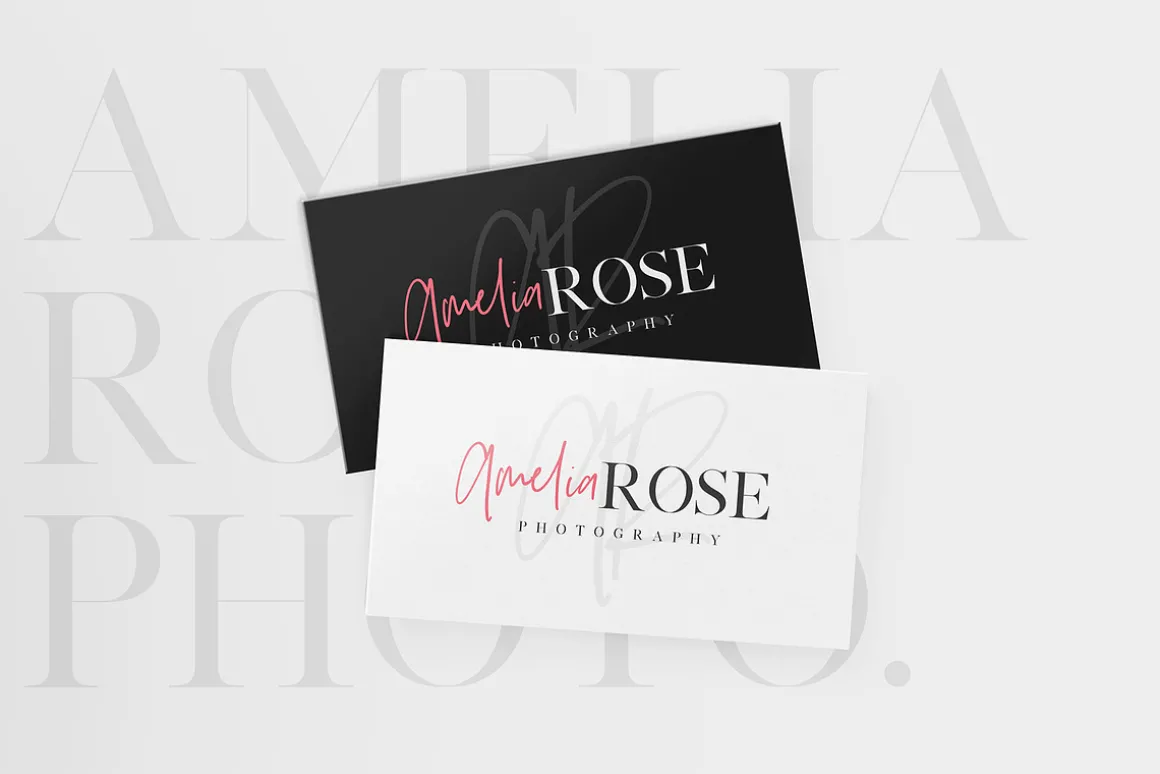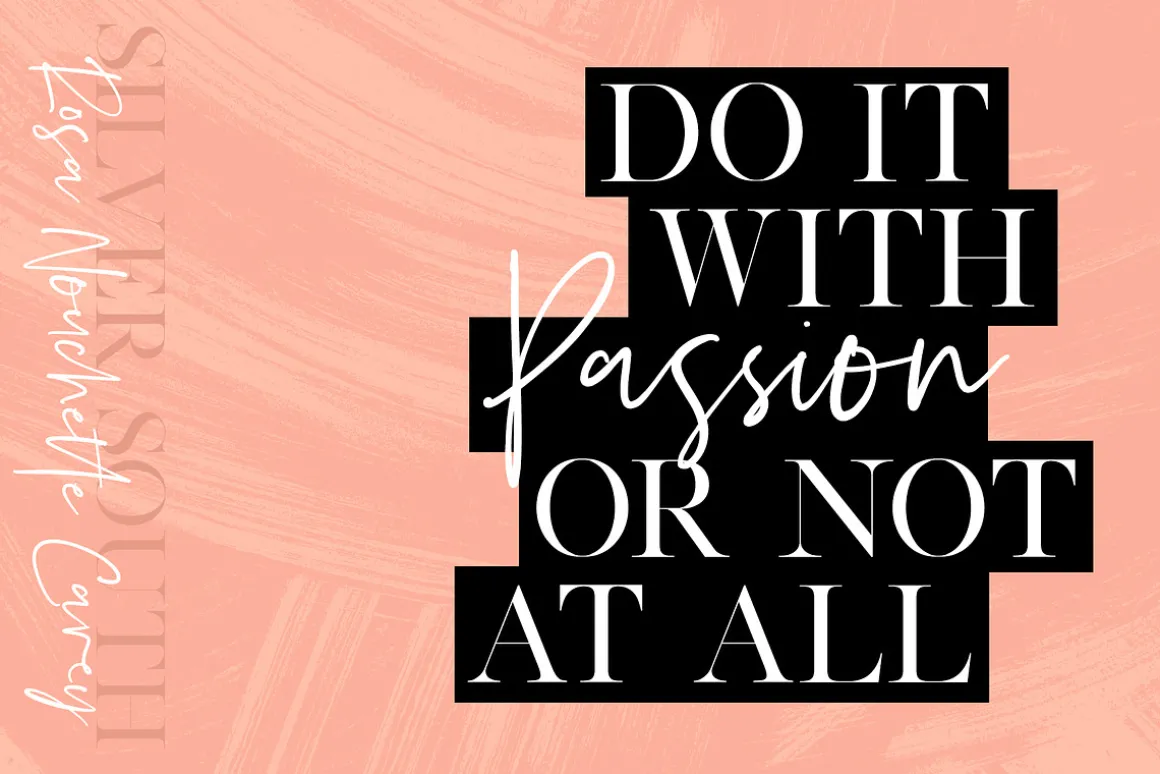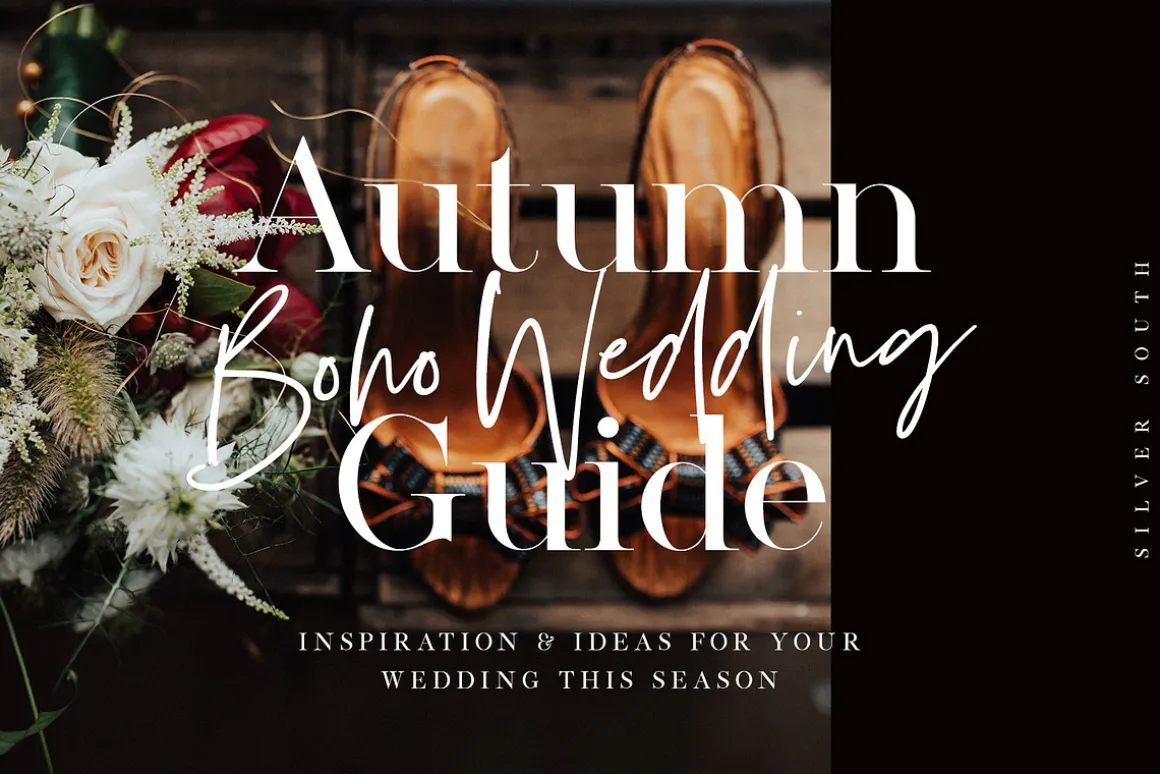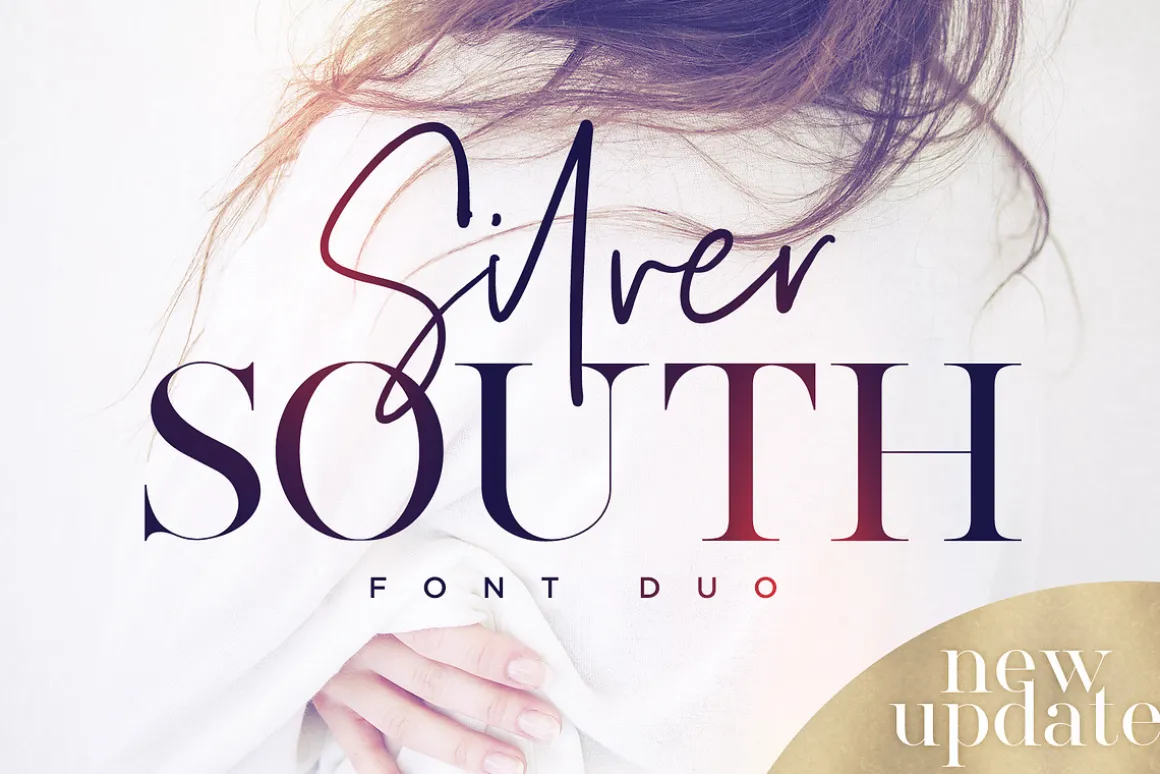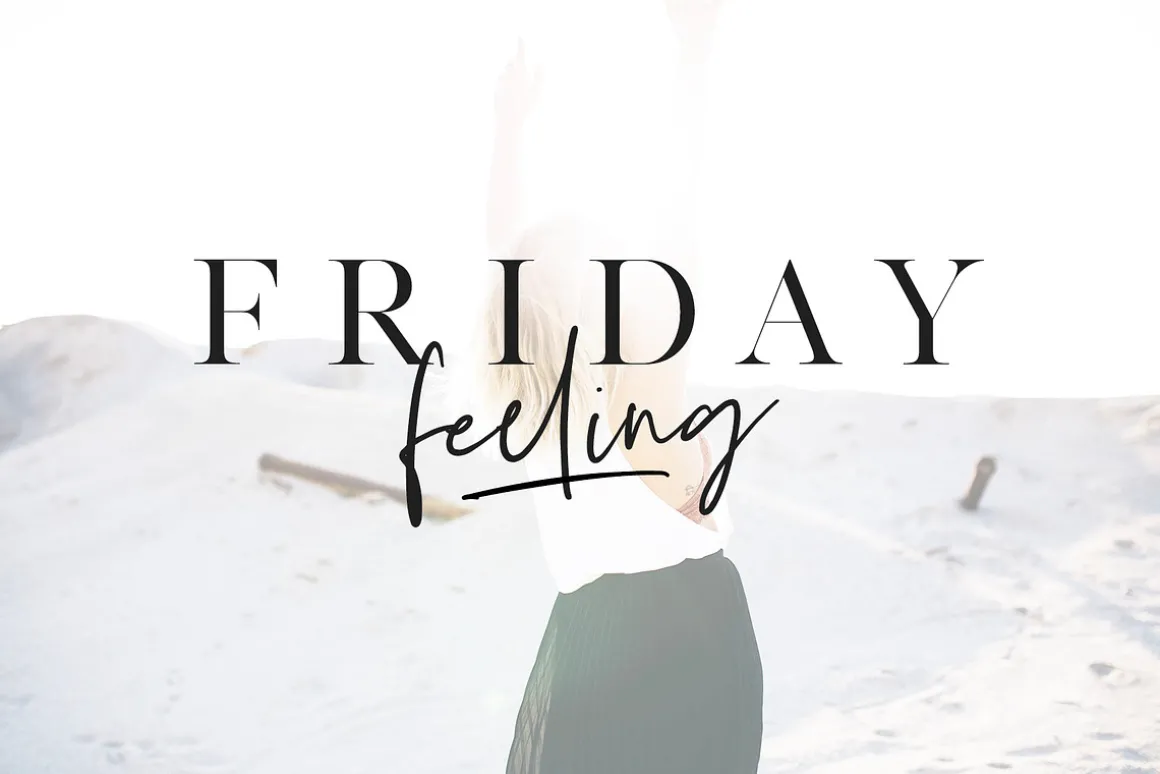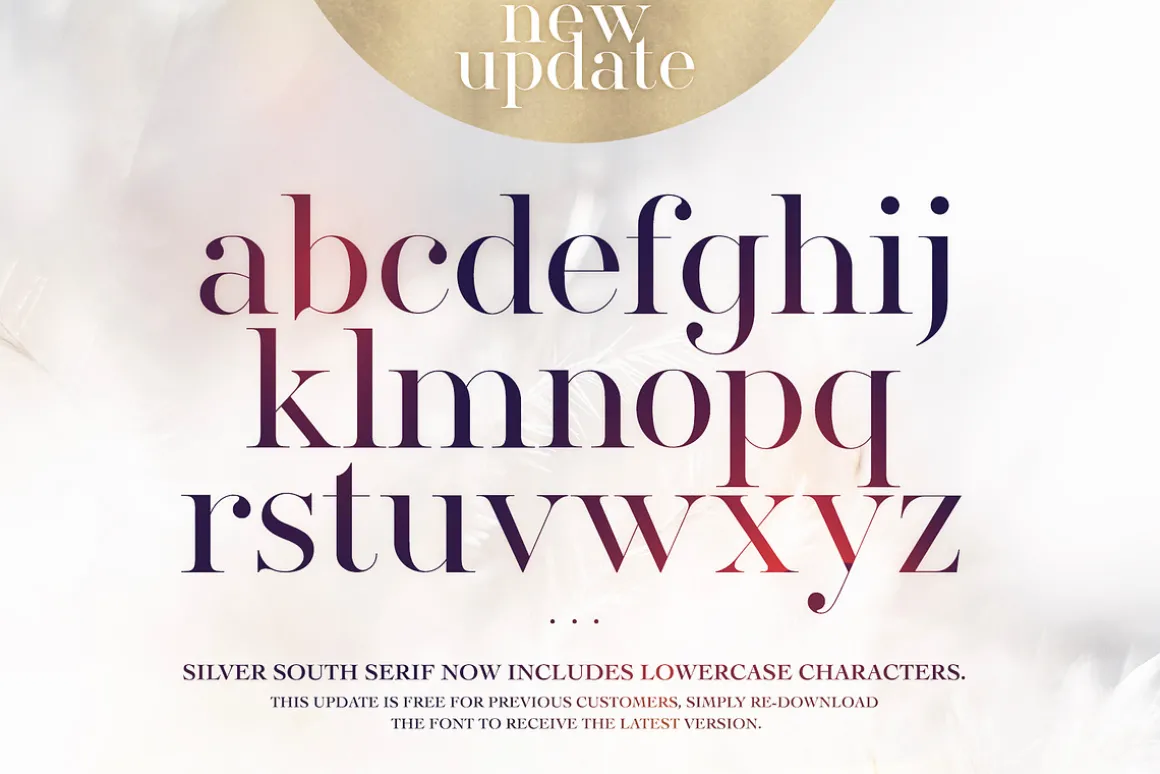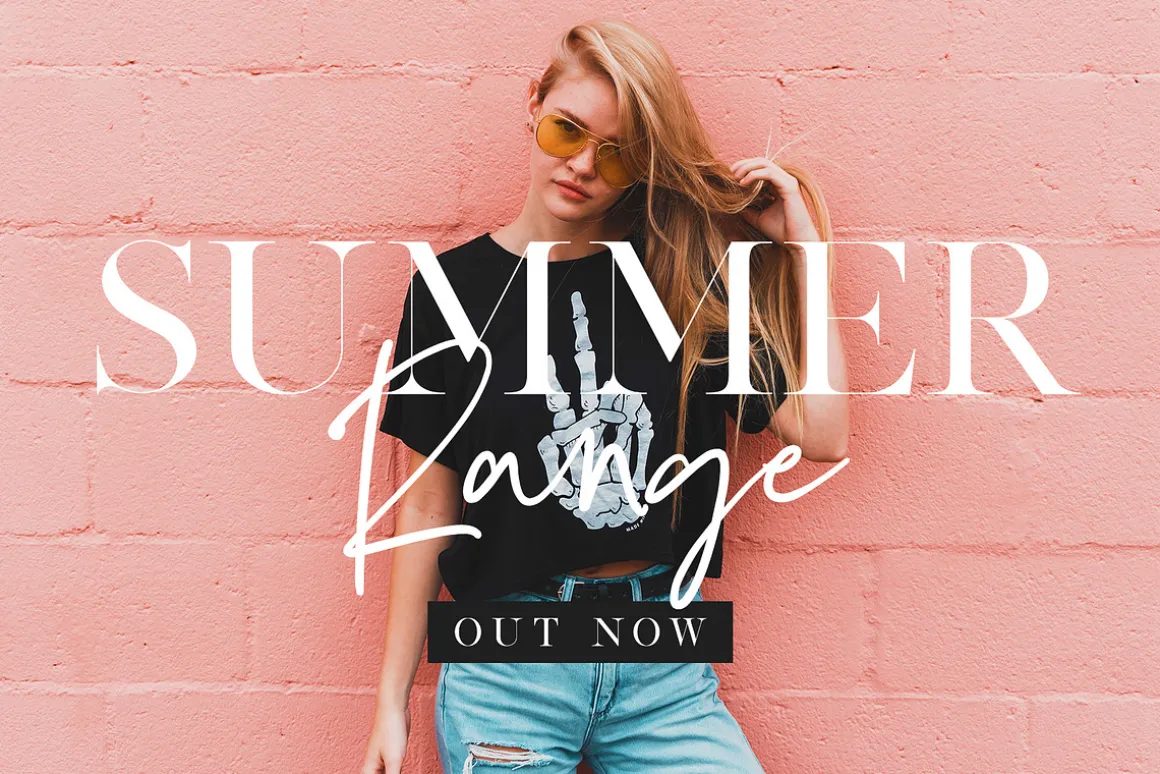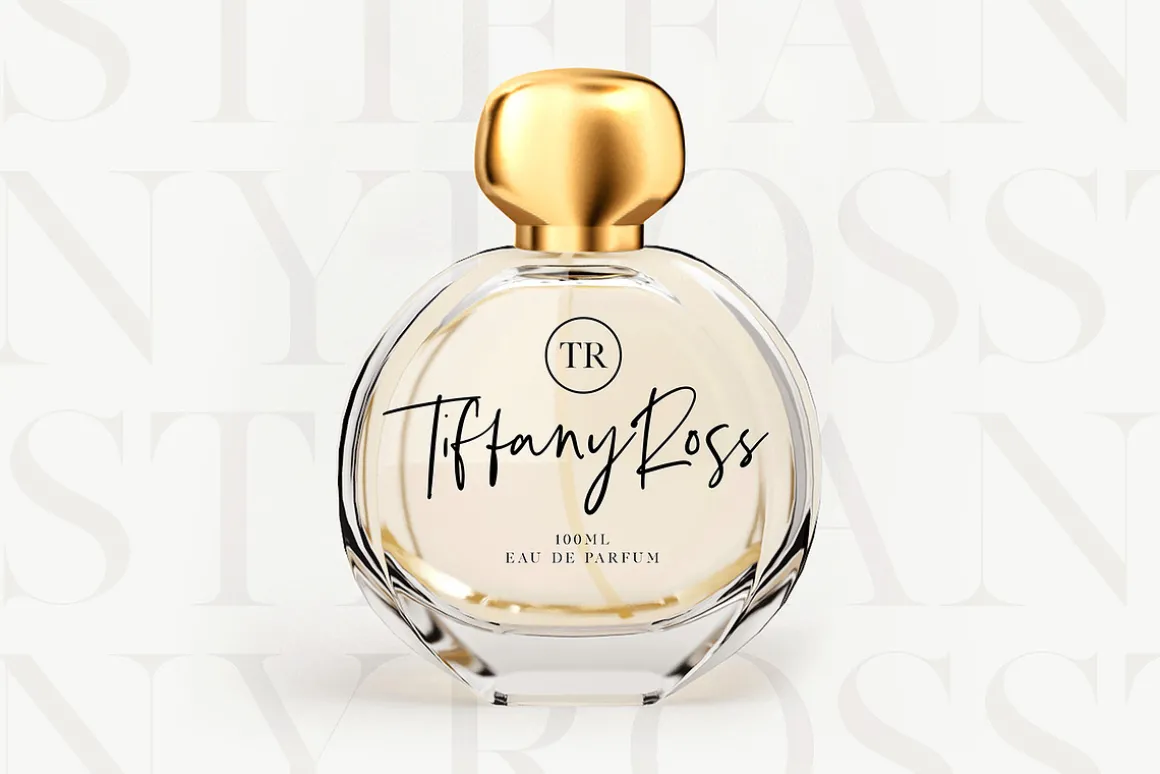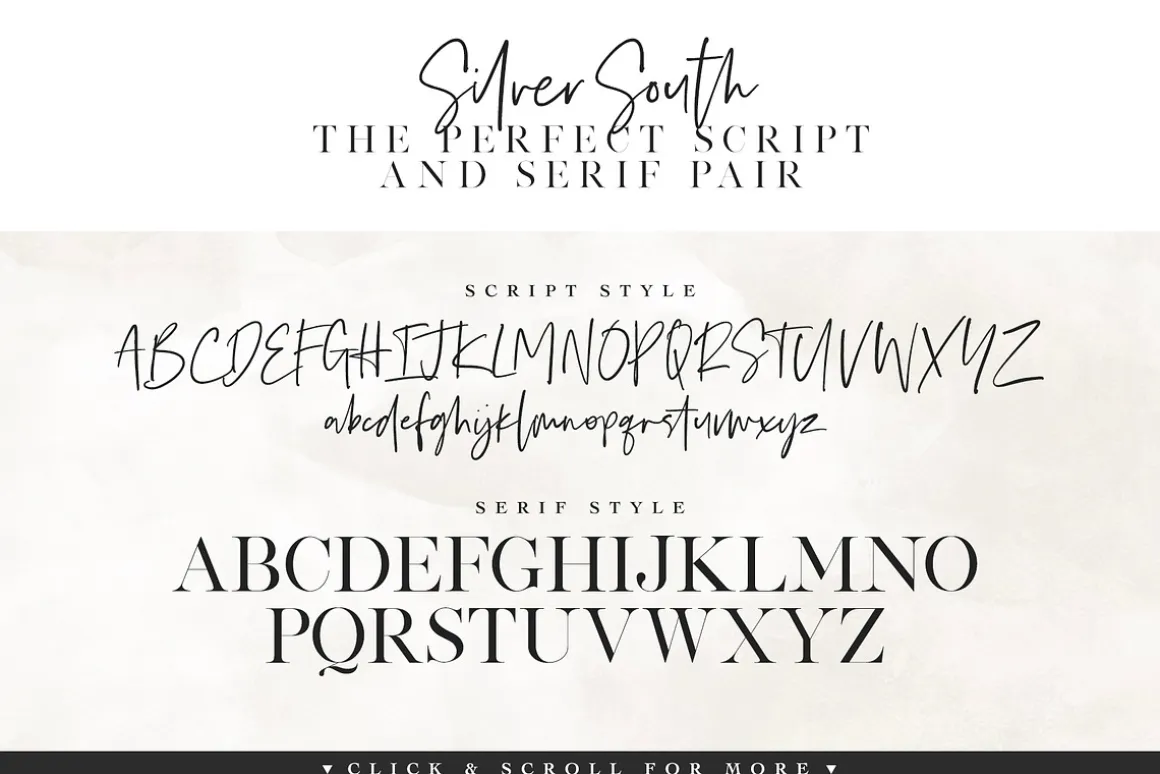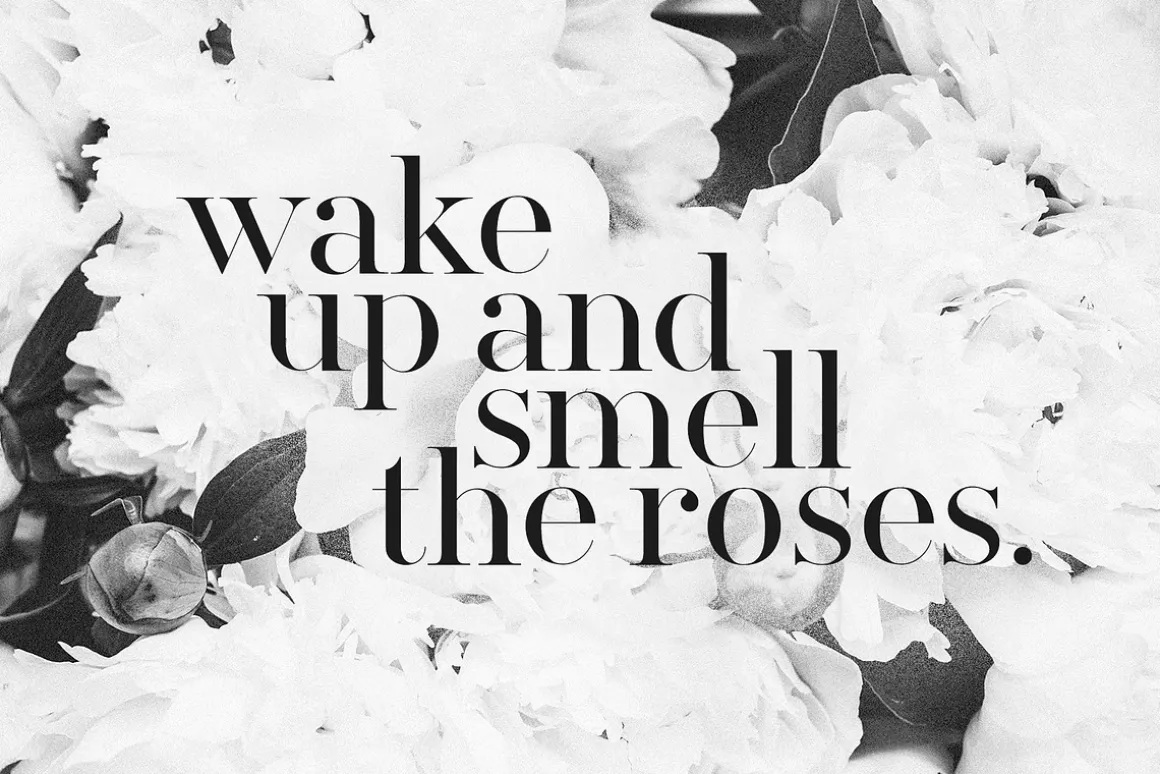
Introducing the Silver South Font Duo, a classy, contemporary pair of script and serif fonts. With a stylish didot-style serif font and a free-flowing, expressive script companion, Silver South offers beautiful typographic harmony for a diversity of design projects, including logos & branding, wedding designs, social media posts, advertisements & product designs.
1. Silver South Script • A clean, free-flowing script font containing upper & lowercase characters, numerals and a large range of punctuation.
2. Silver South Script Alt • This is a second version of Silver South Script, with a completely new set of upper & lowercase characters. If you wanted to avoid letters looking the same each time to recreate a custom-made style, or try a different word shape, simply switch to this font for an additional layout option.
3. Silver South Serif • A classy serif font containing upper & lowercase characters, numerals and a large range of punctuation. Creates a perfect pairing contrast with the Silver South Script fonts.
4. Silver South Ligatures • Simply type any a-z lowercase character, or A-L uppercase character in this font to generate a ligature, if you are unable to access them with opentype software. (If you have opentype software, ‘Discretionary Ligatures’ can be turned on for the Script fonts, which will automatically switch standard letter pairs into the provided ligatures). Silver South Script also contains 2 swashes assigned to the { and } keys.